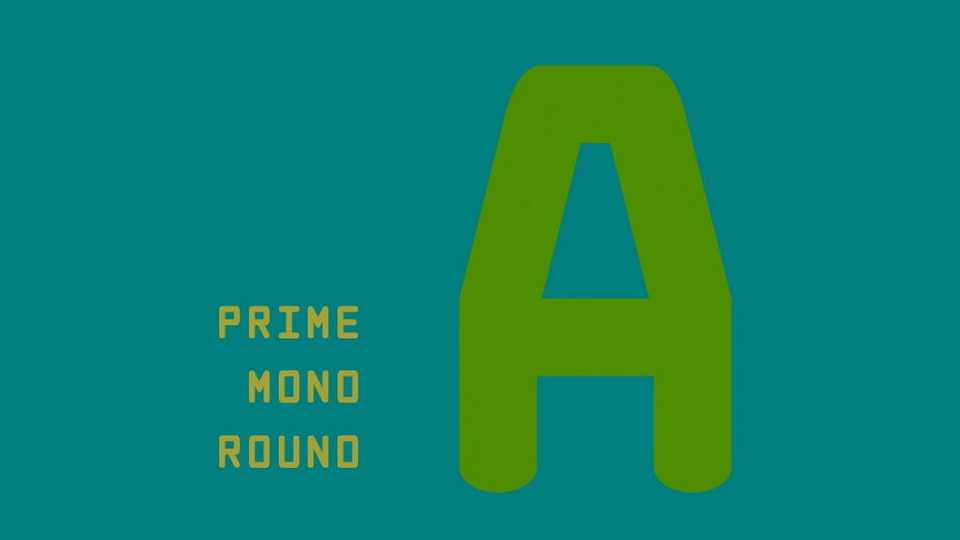
Download Prime Mono Round font, a bold, rounded, monospaced typeface, useful at various scales. The font is the perfect way to add an industrial and retro futuristic look to any project.
Designer: George Arnold